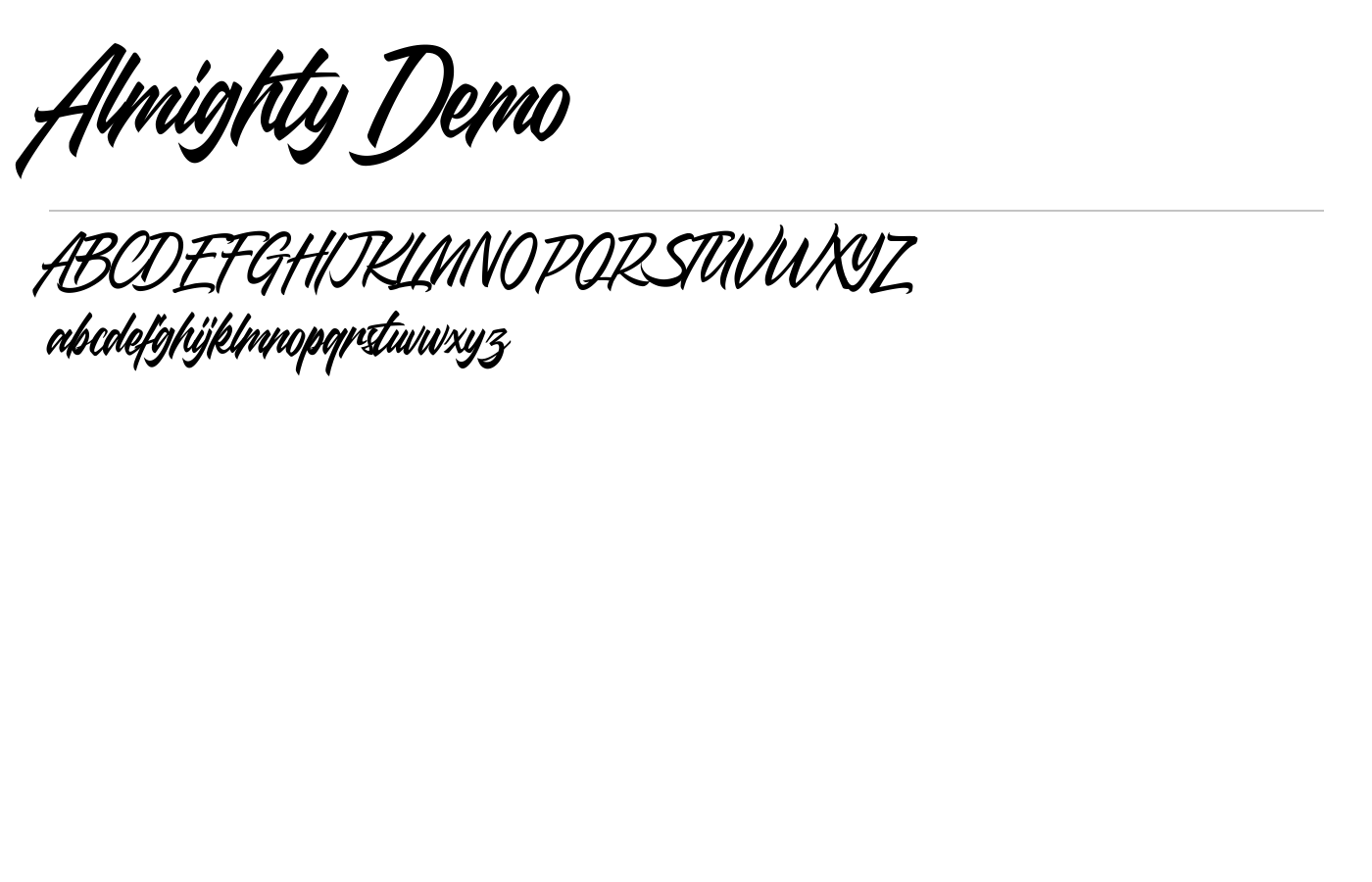
Almighty Demo is a dynamic script font with a bold, energetic feel, featuring smooth, fast brush-style strokes that give it a lively and modern personality. Its tight spacing and flowing letterforms make it perfect for eye-catching logos, headlines, and branding that seek a youthful, creative vibe. This font works best where a stylish handwritten touch is needed to evoke movement and expressiveness.
Almighty Demo Font
About Almighty Demo Font